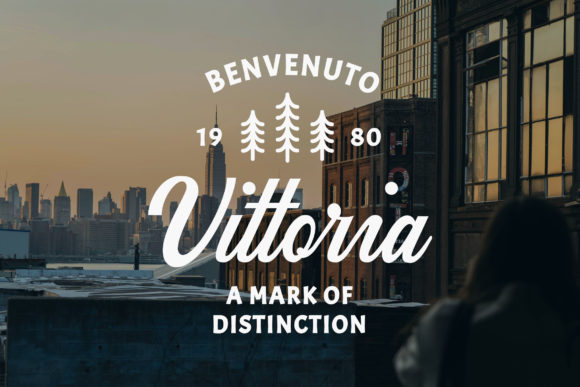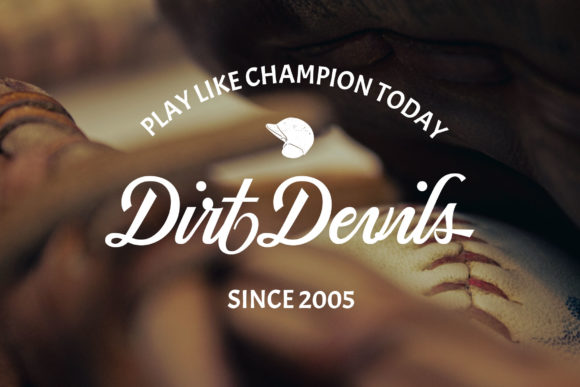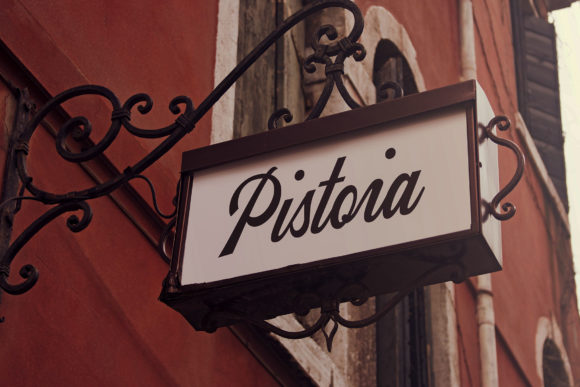
Introduction to Jazzbury Font
Have you ever been working on a creative project and suddenly you need the perfect font to bring it all together? The hunt for that elusive ‘just right’ font can be frustrating, but what if I told you that your search is over? Introducing the Jazzbury Font, a stunning, bold, and vintage handwritten font that’s sure to elevate any design to the next level.
Whether you’re working on a design project with a transparent background or need a reliable design resource for your next big idea, the Jazzbury Font is an invaluable asset. Its casual charm and high-quality design make it incredibly versatile, allowing it to shine in any context. And the best part? This fantastic font is available for a free download, making it an accessible resource for designers of all levels.
Key Features of Jazzbury Font
- High-quality, professional font suitable for creative projects requiring a unique touch.
- Unique characteristics include a mix of modern and vintage elements, perfect for creating a distinctive visual identity.
Honest Review: Jazzbury Font
I recently came across the Jazzbury Font, a new design resource that has been making waves in the creative community. As a designer, I was eager to put it to the test and see if it lives up to the hype.
- ✨ High quality typography: The Jazzbury Font boasts beautiful, crisp lettering that’s perfect for any creative project.
- ✨ Versatile design: The font is available in a range of weights and styles, making it a great addition to any design toolkit.
- ⚠️ Limited character set: While the font is great for basic text, it’s not ideal for complex typography or special characters.
Overall, I’m impressed with the Jazzbury Font. It’s a high-quality design resource that’s perfect for small to medium-sized creative projects. While it has some limitations, it’s a great addition to any designer’s toolkit.
The Jazzbury Font is a free design resource ideal for creative projects that require a touch of elegance and sophistication. With its high-quality typography and transparent background, this font is perfect for designers who want to add a unique touch to their work.
The Jazzbury Font is suitable for a variety of design projects, including:
- Wedding invitations and stationery.
- Business cards and marketing materials.
- Graphic design projects and branding materials.